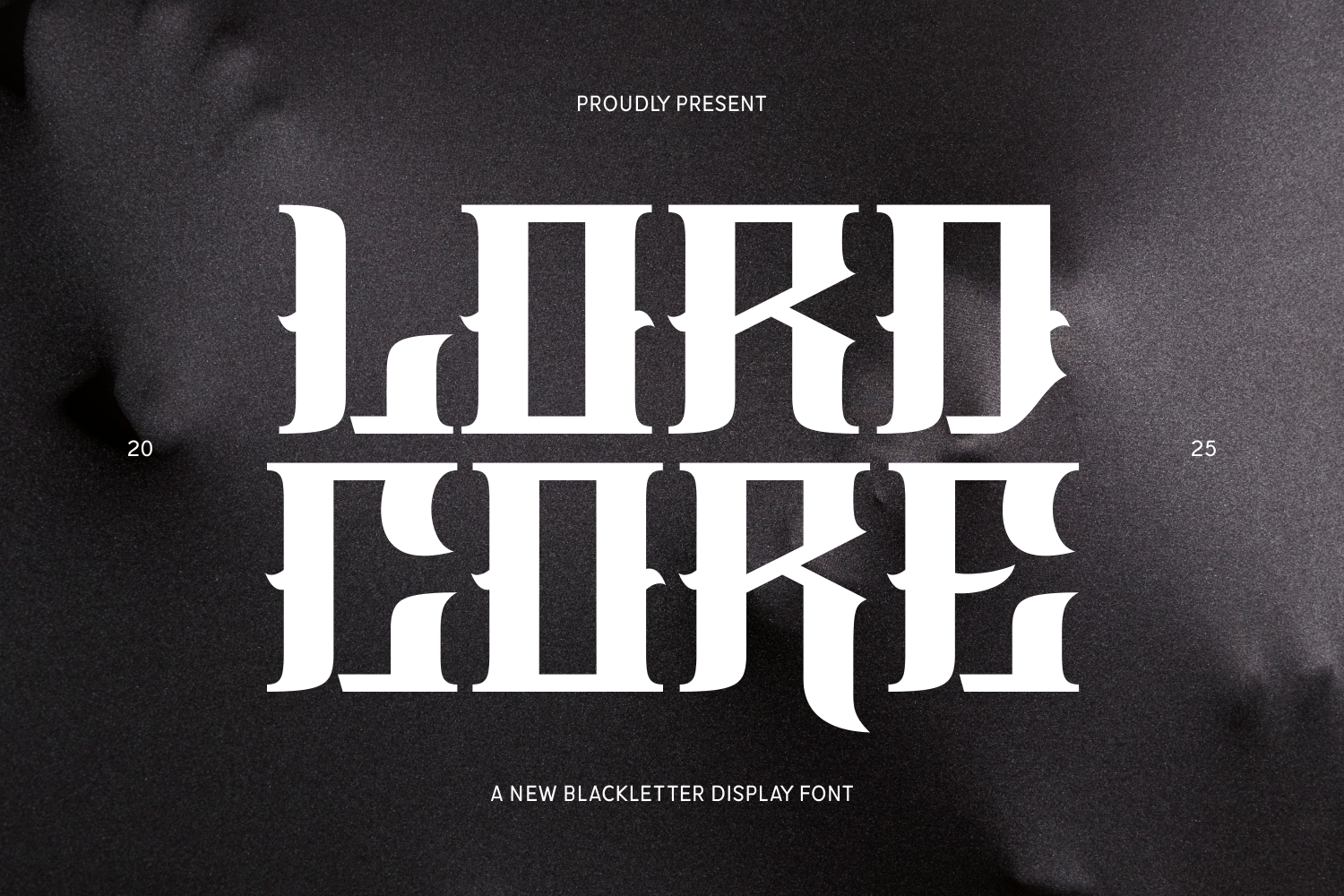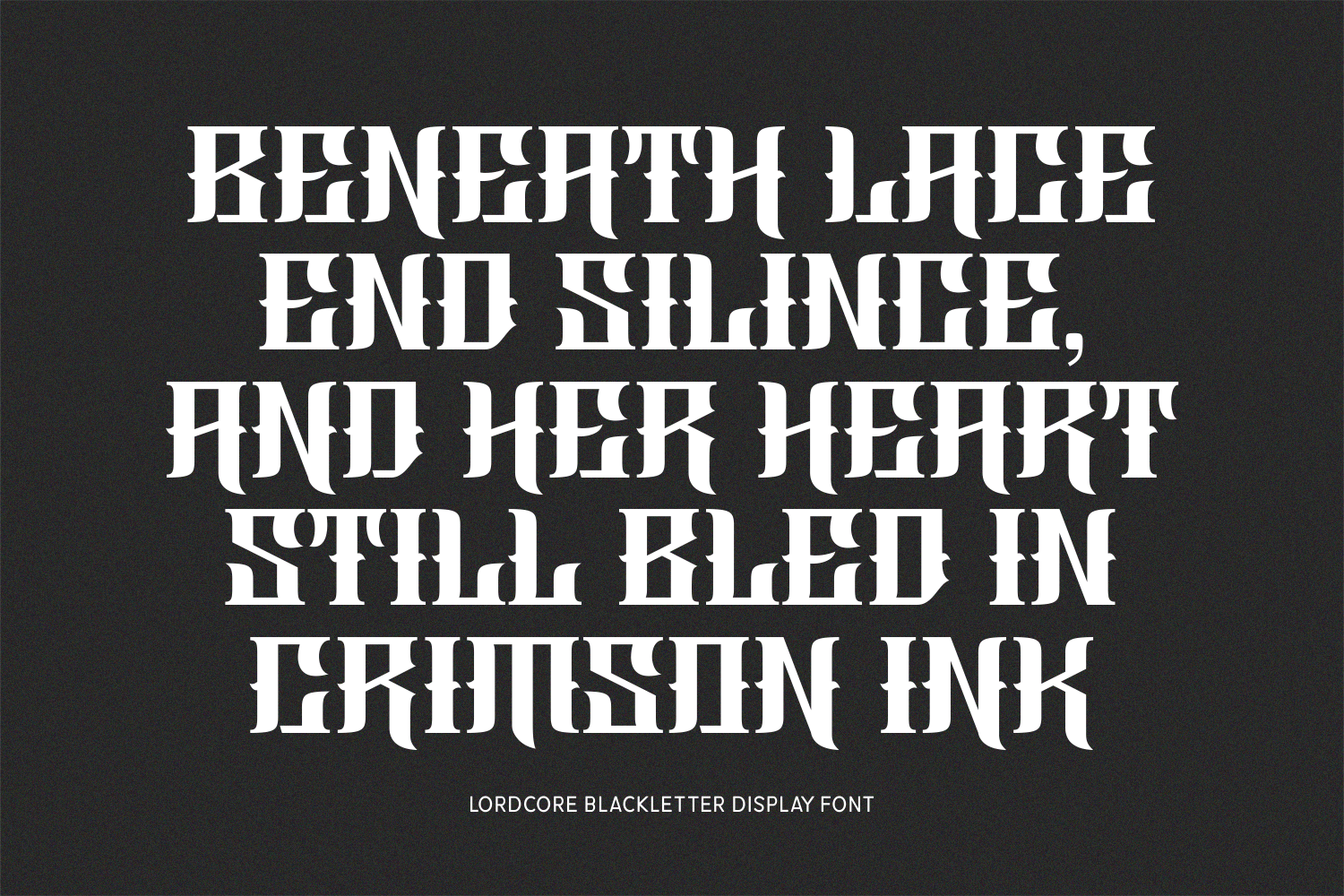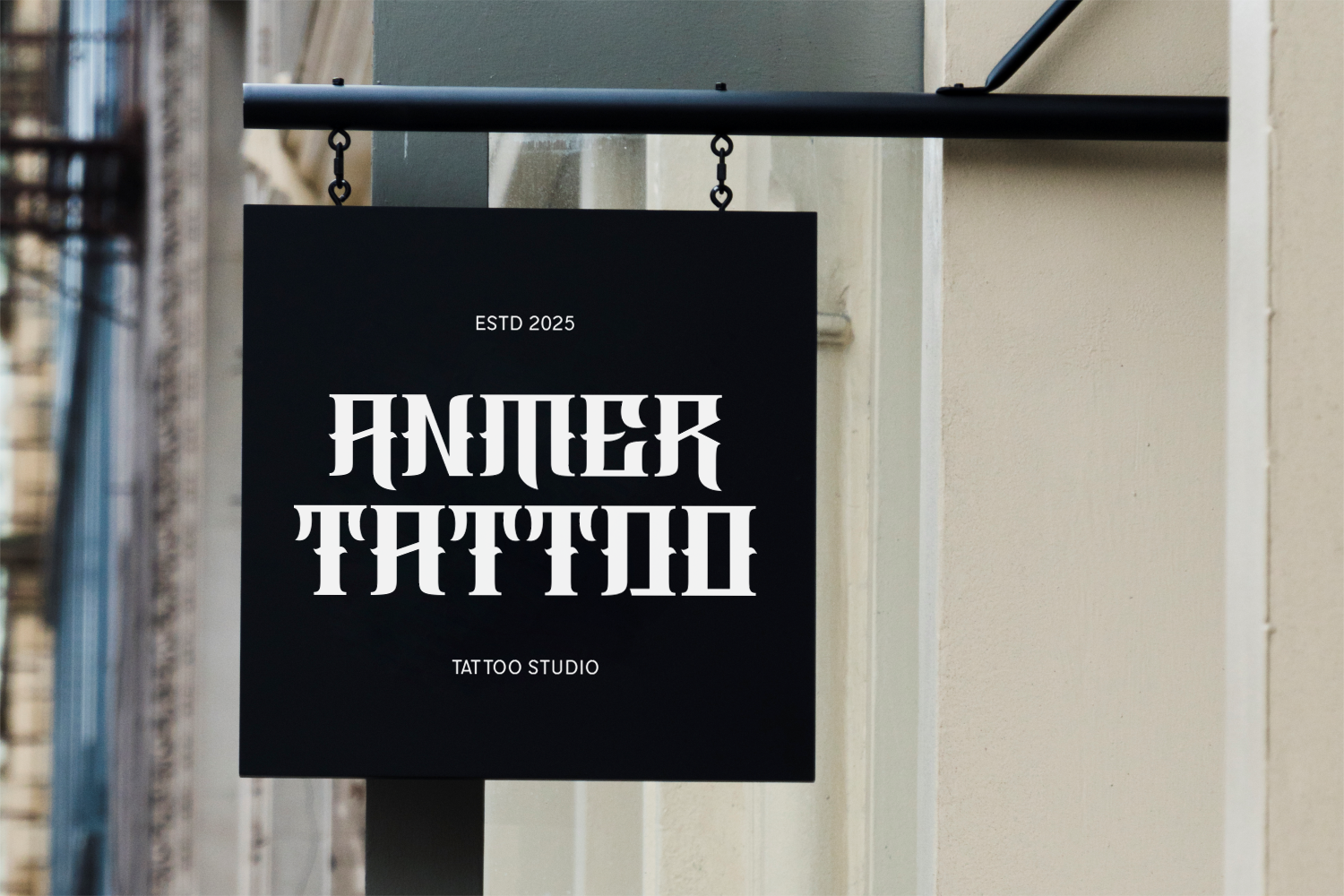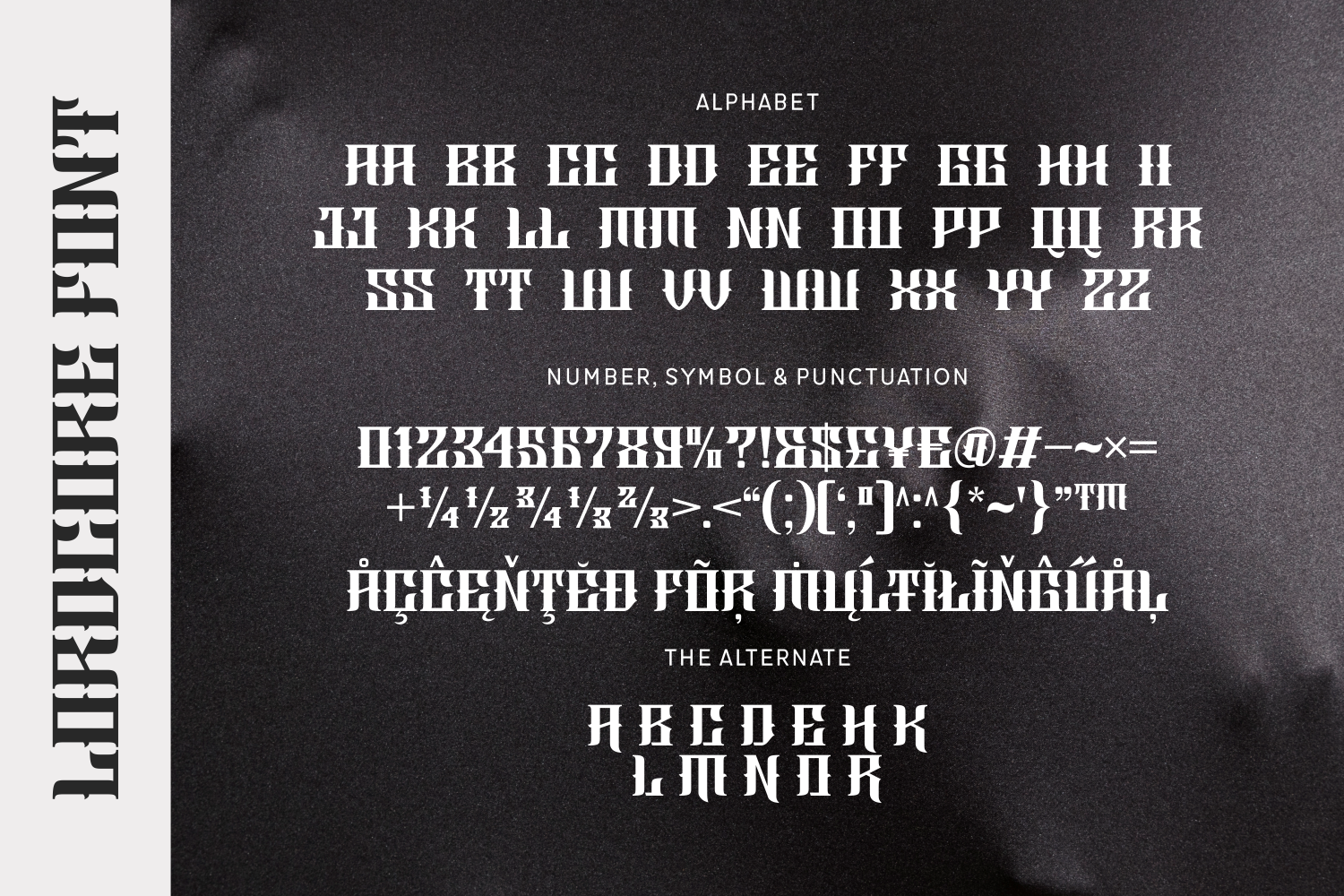
Lordcore is a contemporary blackletter display font with bold geometric forms. Perfect for modern gothic branding, streetwear logos, and striking editorial headlines.